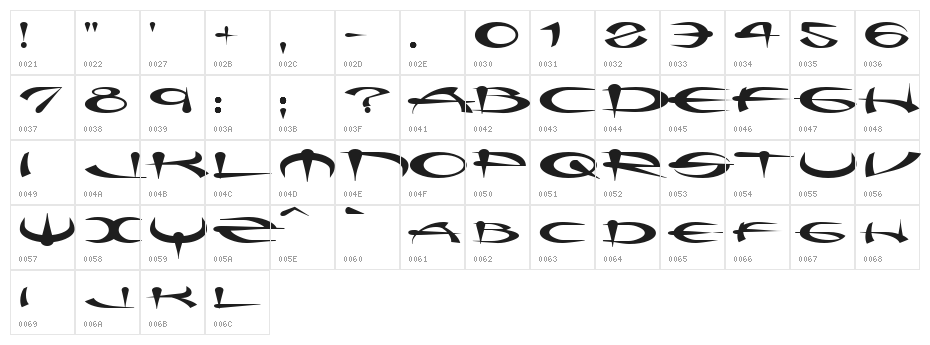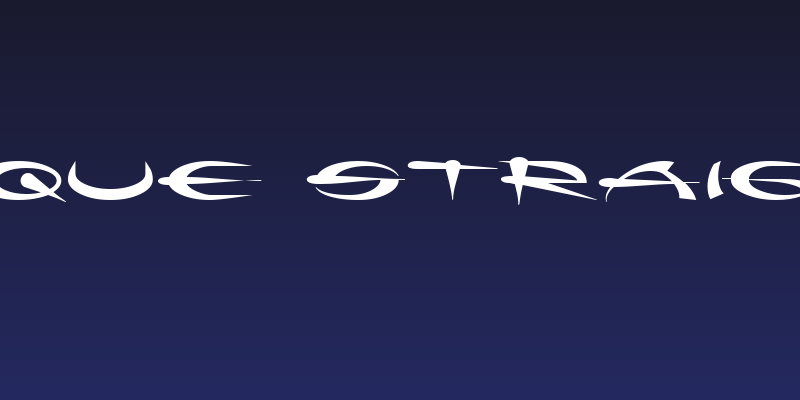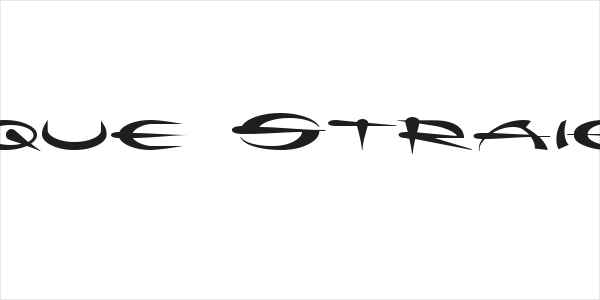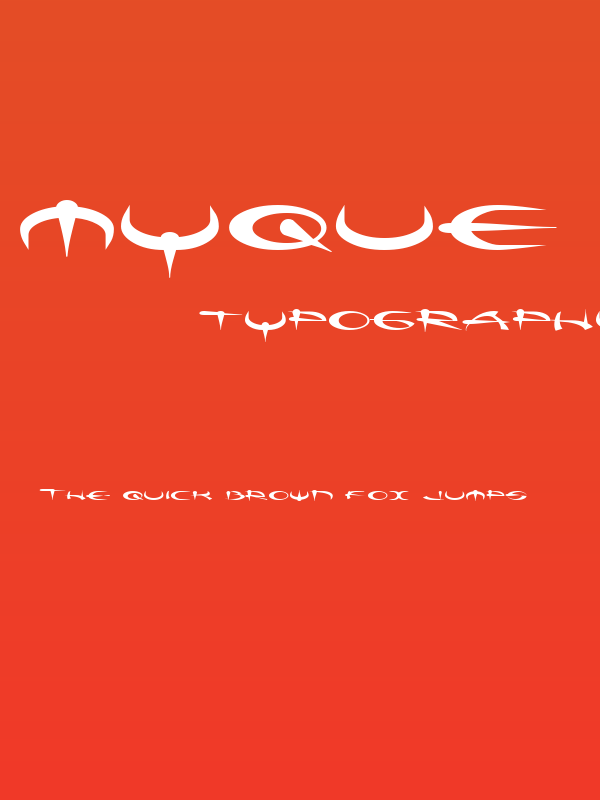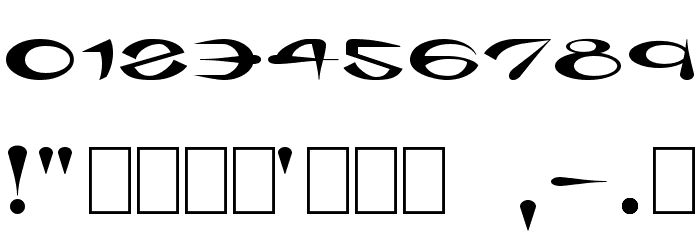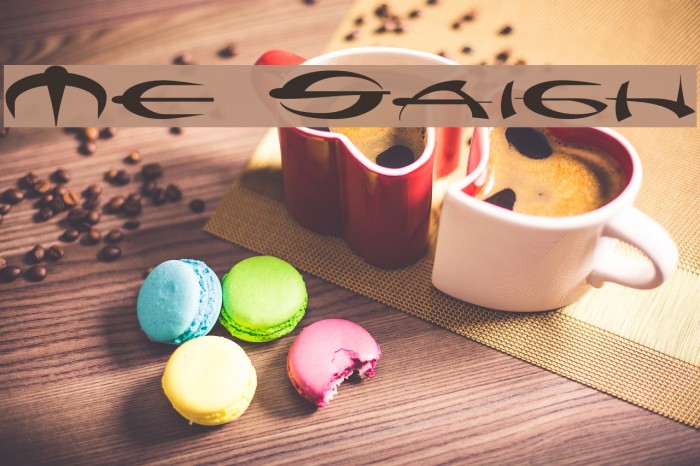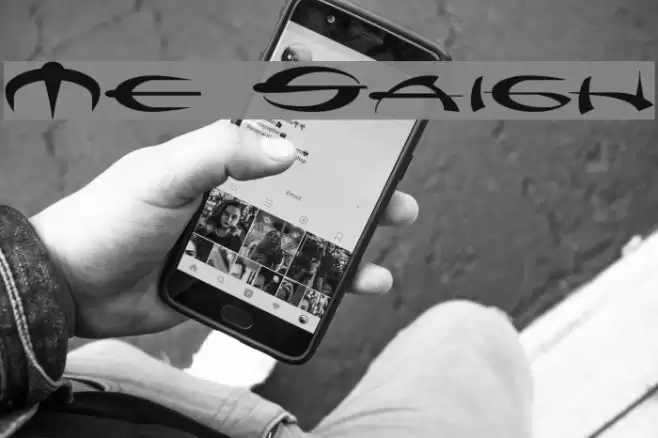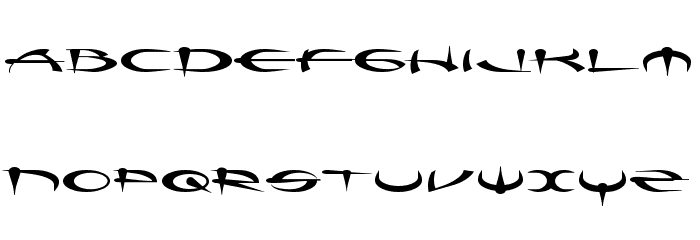
Myque Straight Font
Myque Straight Description
This font features a unique and edgy design with sharp, angular elements that give it a futuristic and aggressive appearance. The characters are elongated with pointed serifs and intricate detailing, creating a sense of movement and dynamism. The uppercase and lowercase letters maintain a consistent style, emphasizing the font's cohesive aesthetic. Numbers and special characters are designed with the same attention to detail, ensuring uniformity across all glyphs. This font's distinct style makes it ideal for projects that require a bold and unconventional look.
| Categories | Gothic |
| Overall Style | Futuristic, Edgy |
| Use Case | Logos, Headlines, Posters |
| Proposed Projects | Ideal for sci-fi themed designs, video game titles, band logos, and edgy branding projects. |